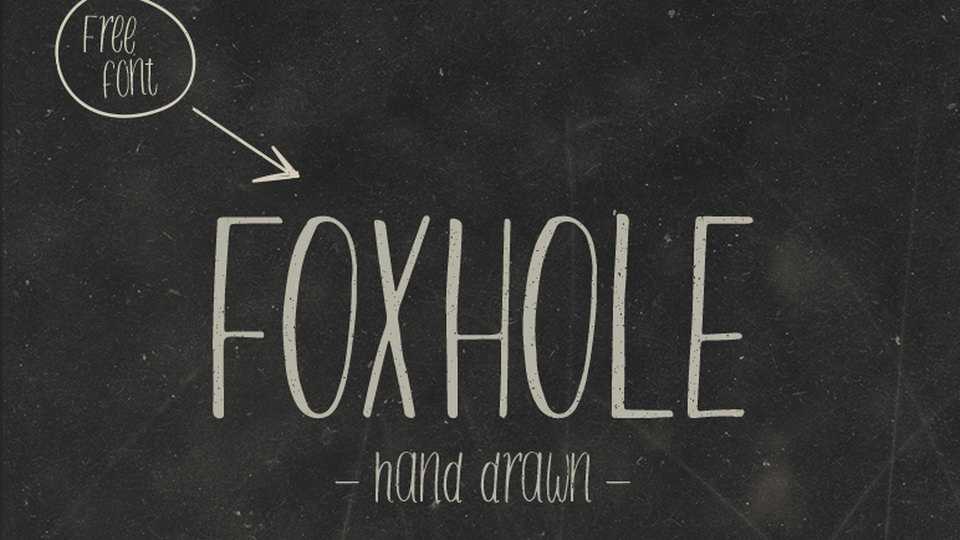
Download Foxhole font a lovely handmade typeface with natural look and some vintage feel. Great for crafts, blogs, social media, badges, labels, letters, cards and other creative projects.
Designer: Ian Barnard